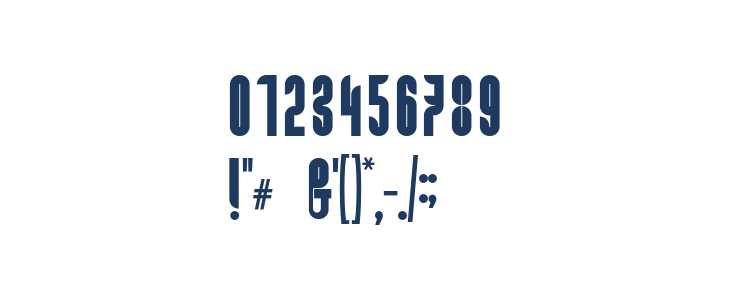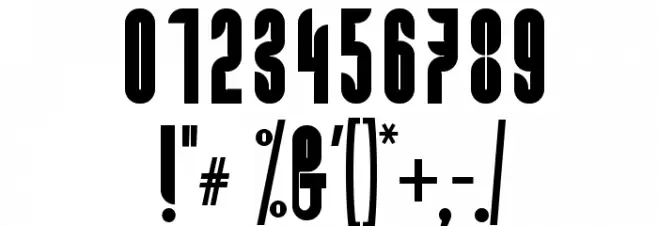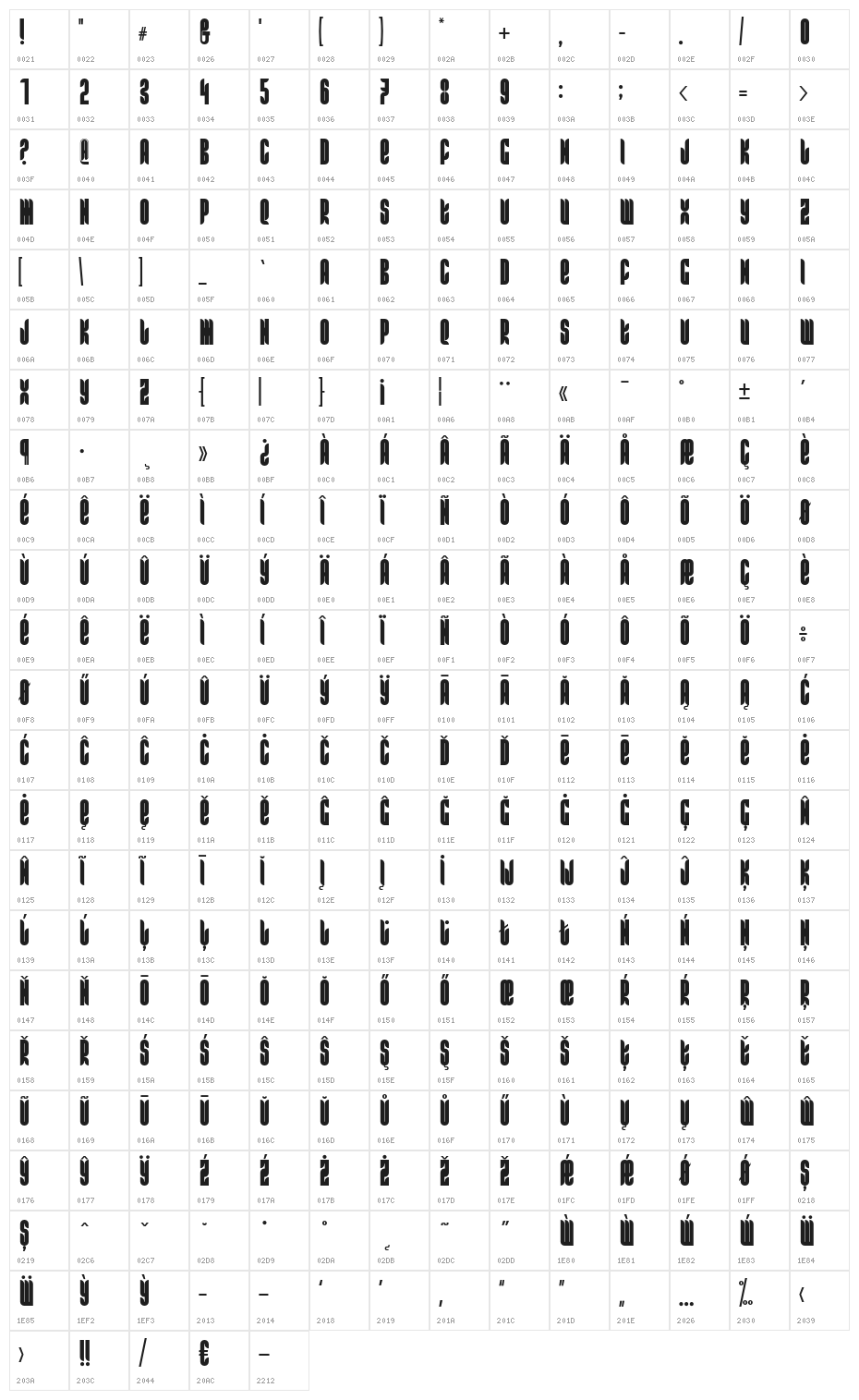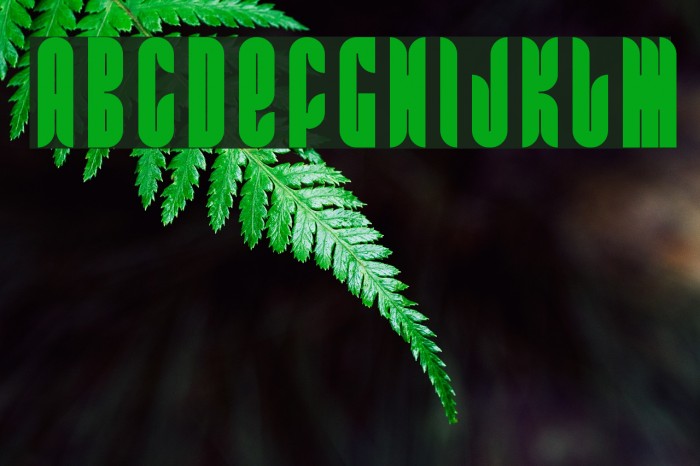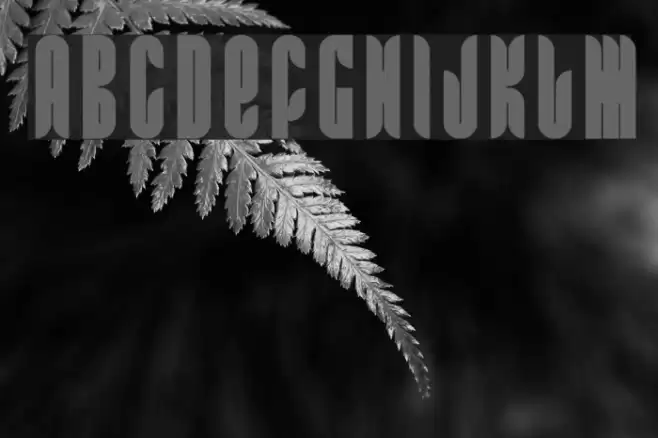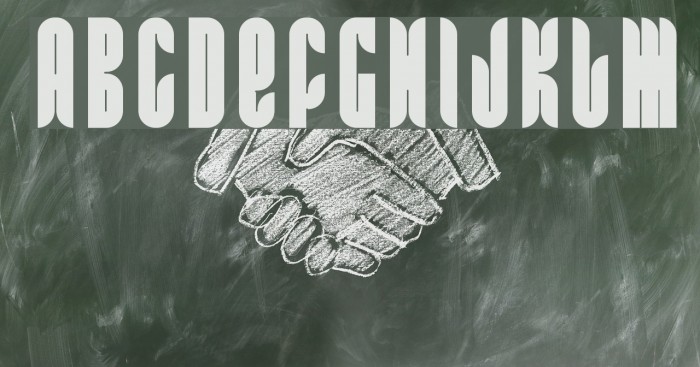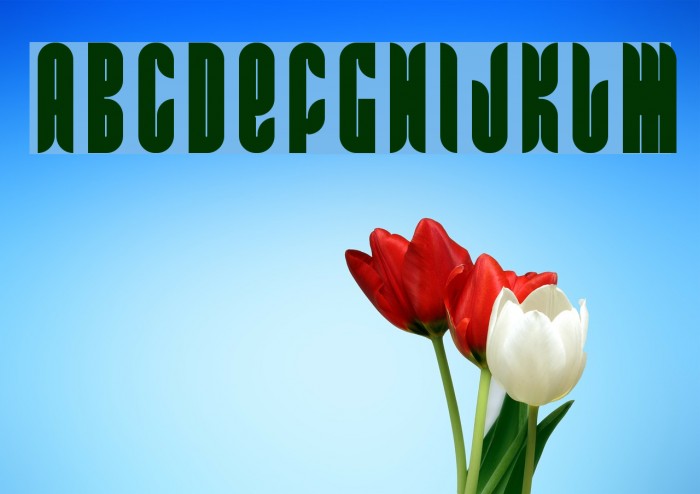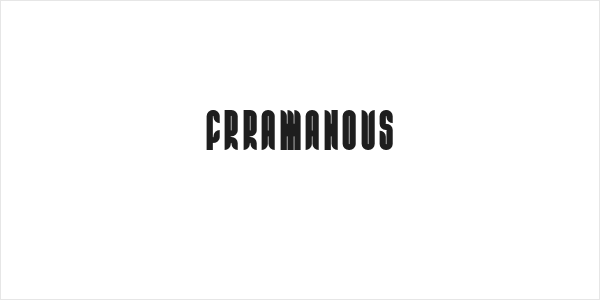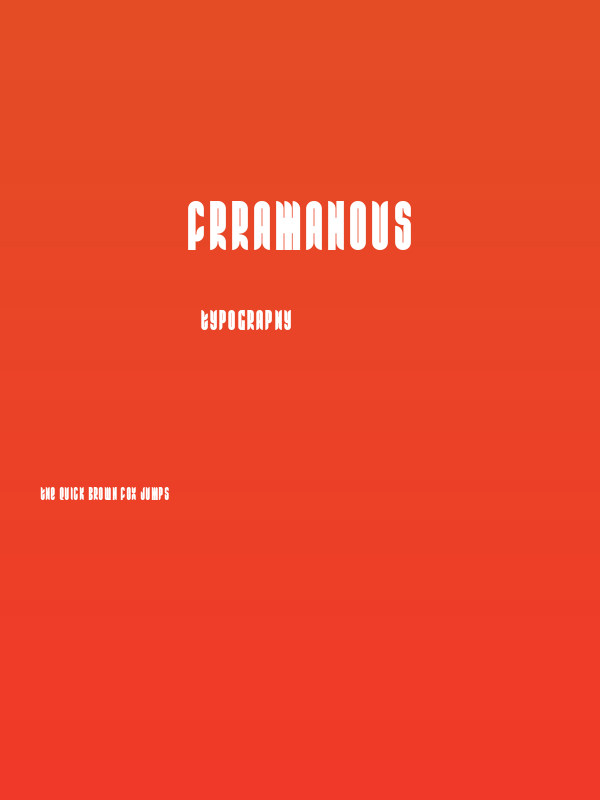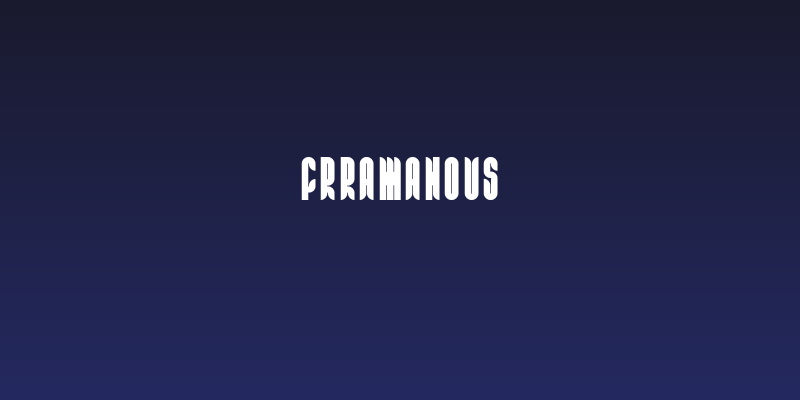
FRRamaNous Font
FRRamaNous Description
This font features a bold and striking design with a strong presence. The characters are tall and narrow, with a distinct geometric style that emphasizes vertical lines. The uppercase letters are particularly prominent, with a consistent width that gives them a uniform appearance. The lowercase letters maintain the same boldness, ensuring readability while retaining the font's unique style. Numbers and special characters are crafted with the same attention to detail, making them stand out. The overall design is modern and eye-catching, suitable for making a statement.
| Proposed Projects | Ideal for posters, headlines, branding, and any project that requires a strong visual impact. |